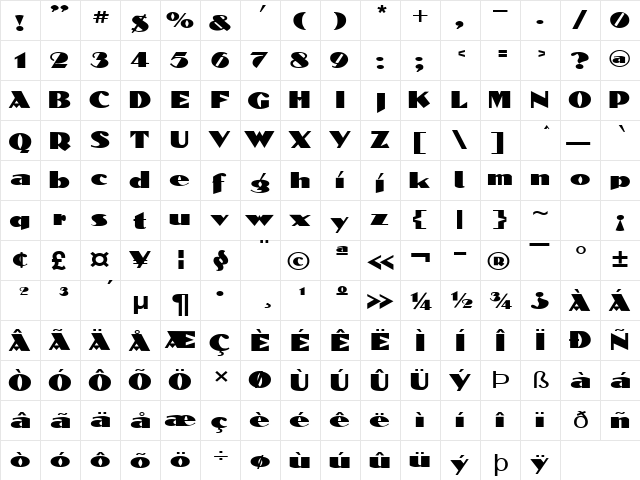
ConstantineExtended Normal
Design Context for ConstantineExtended Typeface
ConstantineExtended is a composed and adaptable typeface that performs quietly and consistently across a wide range of design contexts.